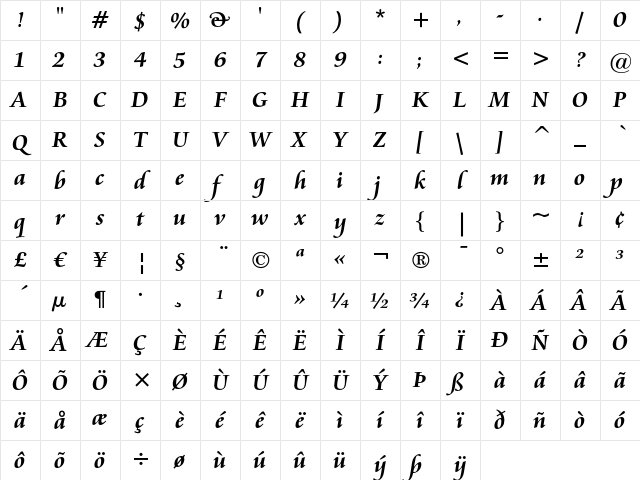
Cataneo is a composed and adaptable typeface that performs quietly and consistently across a wide range of design contexts. Its bold stroke weight gives it real presence on the page.